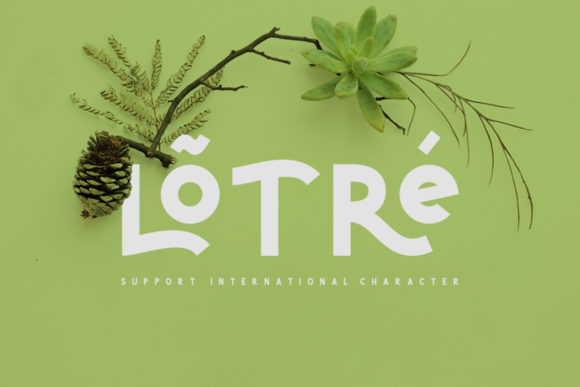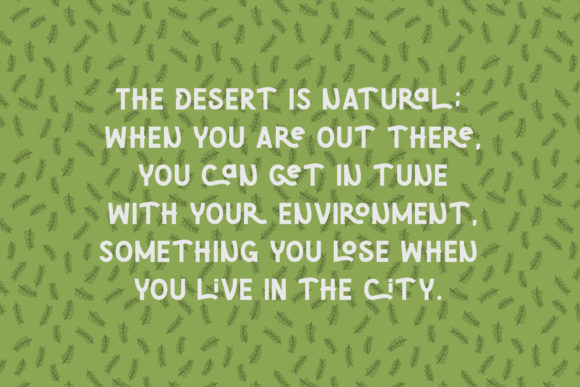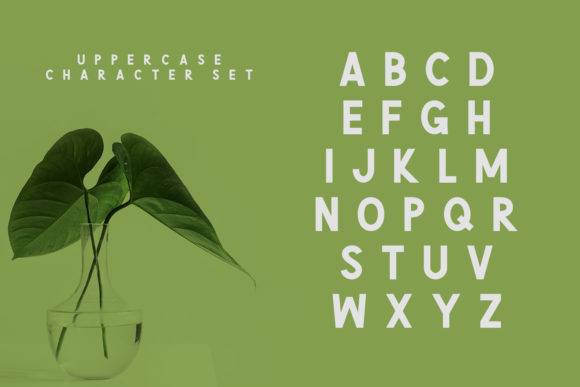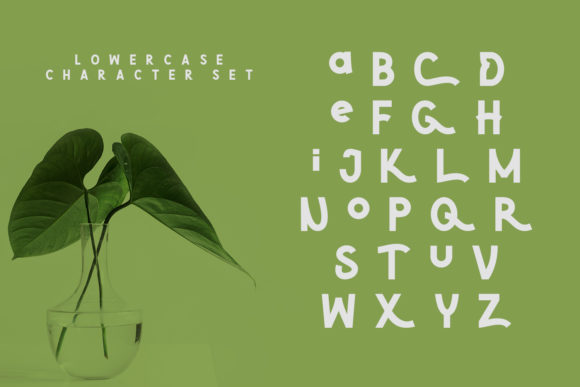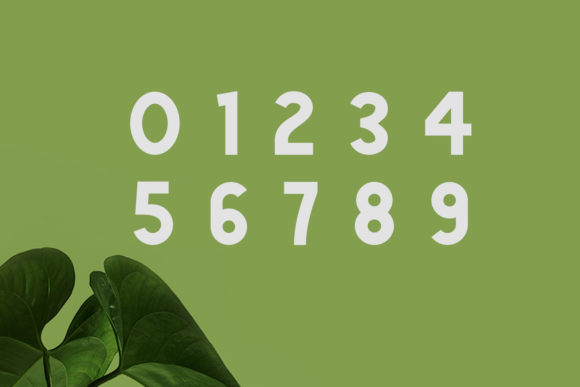
The Fresh and Natural Appeal of Green Font: Elevate Your Design with a Sustainable Touch
In the realm of typography, the right font can make or break a design. For those seeking a fresh and natural aesthetic, the Green Font is an excellent choice. This sans serif typeface is inspired by the prime color of our world, evoking feelings of serenity, growth, and harmony. In this article, we’ll delve into the world of Green Font, exploring its unique characteristics, and how it can help you create stunning designs with a natural feel.
The Inspiration Behind Green Font
Green, the color of life and nature, has long been a symbol of balance and renewal. It’s the color of lush forests, rolling hills, and sparkling emeralds. The Green Font takes its cue from this vibrant hue, capturing its essence in a clean and modern sans serif typeface. This font is perfect for designers and crafters looking to infuse their work with a sense of organic freshness.
Key Features of Green Font
The Green Font boasts several key features that make it an attractive choice for designers:
- Clean and Simple Design: The Green Font features a minimalist sans serif design, making it highly legible and versatile.
- Natural Feel: The font’s curves and lines evoke a sense of natural elegance, perfect for designs that require a touch of sophistication.
- Fresh and Modern: The Green Font’s contemporary design ensures that your work looks up-to-date and stylish.
- Highly Versatile: This font can be used for a wide range of applications, from branding and advertising to packaging and digital media.
Using Green Font in Your Design
So, how can you incorporate the Green Font into your design work? Here are a few ideas to get you started:
- Branding and Logos: Use the Green Font to create a natural and earthy brand identity that resonates with your audience.
- Packaging Design: Add a touch of freshness to your product packaging with the Green Font, perfect for eco-friendly or natural products.
- Digital Media: The Green Font is ideal for digital media, including website design, social media graphics, and email marketing campaigns.
- Print Materials: Use the Green Font in print materials such as brochures, flyers, and business cards to create a lasting impression.
Tips for Pairing Green Font with Other Design Elements
To get the most out of the Green Font, consider pairing it with other design elements that complement its natural aesthetic:
- Earth Tones: Combine the Green Font with earthy colors such as brown, beige, and tan to create a cohesive natural look.
- Natural Textures: Add texture to your design with natural elements such as wood, stone, or leaf patterns.
- Simple Imagery: Use simple, organic imagery that complements the natural feel of the Green Font.
The Green Font is a versatile and stylish typeface that can elevate your design work with its fresh and natural appeal. Whether you’re a designer, crafter, or simply someone looking for a unique font, the Green Font is an excellent choice. With its clean design, natural feel, and high versatility, this font is sure to inspire your creativity and help you create stunning designs that stand out.